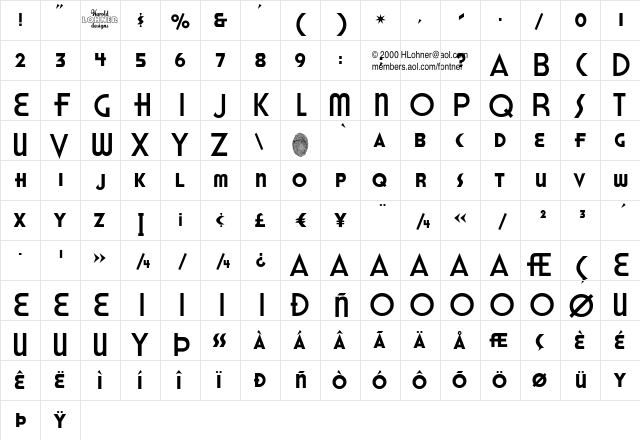
Honest John's Regular
Design Context for Honest John's Typeface
Honest John's is a composed and adaptable typeface that performs quietly and consistently across a wide range of design contexts.